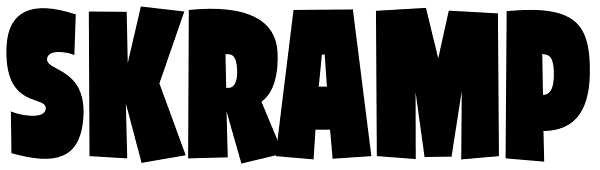
Skramp
Skramp is my funky comic text font, looks good with massive text or just a headline here and there. You will need to use OpenType supporting applications to use the autoligatures